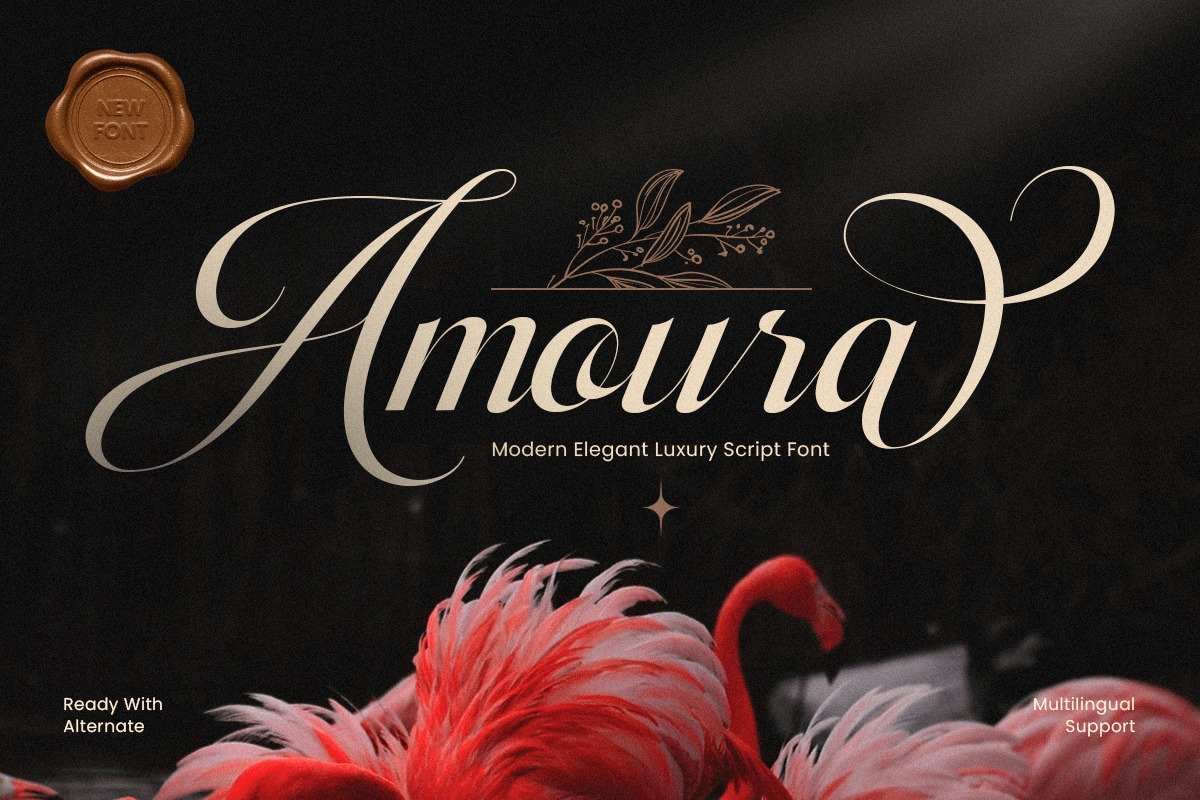
Amoura – Elegant Luxury Font
Amoura – Elegant Luxury Font is a distinctive and expressive font crafted to bring personality, structure, and creative energy into your projects. Amoura is a modern elegant luxury script font crafted to bring graceful movement and refined sophistication to your typography. With flowing strokes, polished curves, and a premium handwritten rhythm, this typeface creates a luxurious visual tone that feels stylish, feminine, and instantly memorable.
Built for high-end branding and signature-style design, Amoura works beautifully across logos, wordmarks, website headers, packaging, labels, invitations, editorial layouts, social media graphics, presentations, and upscale marketing visuals. Its elegant script structure adds a personal, high-fashion touch while maintaining clarity across both digital and print applications.
Whether you’re building a beauty brand, creating boutique packaging, designing romantic stationery, or crafting premium promotional materials, Amoura provides a luxurious script foundation that makes your typography feel expressive, polished, and unforgettable.